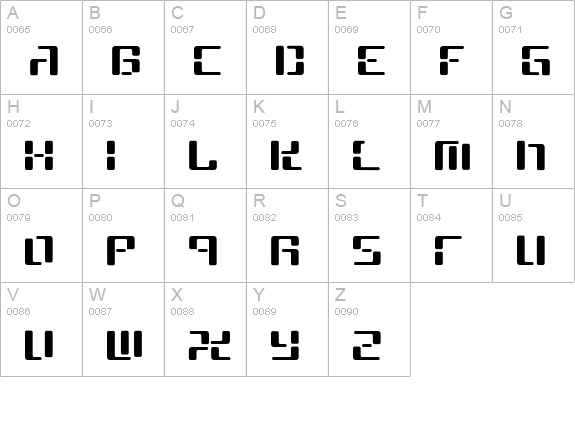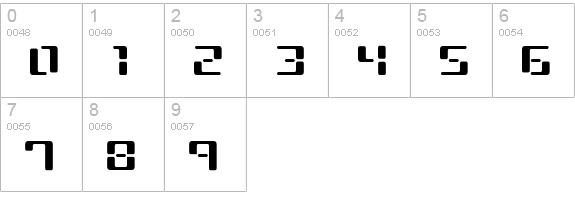
CYBE Font Details
Introducing CYBE font - a versatile and elegant typeface designed to make your projects stand out. With its modern yet timeless appeal, CYBE font is perfect for a wide range of design applications including branding, packaging, editorial design, and more. The sleek lines and unique curves of CYBE font add a touch of sophistication to any project, making it a top choice for designers looking to make a statement. What's even better is that CYBE font is available for free download at FontsMarket.com. That's right, you can access this stunning font without any cost, allowing you to elevate your designs without breaking the bank. Whether you're a seasoned designer or just starting out, CYBE font is a must-have in your font library. Download it today and unleash your creativity with this beautiful typeface.